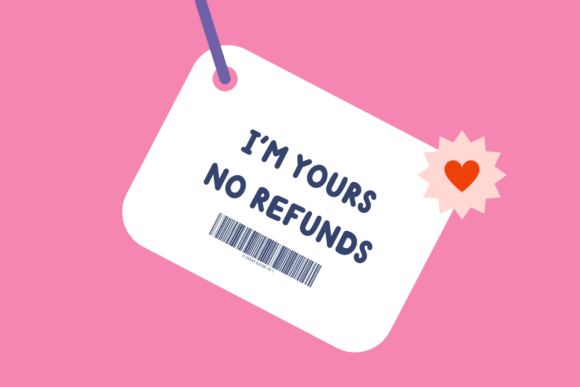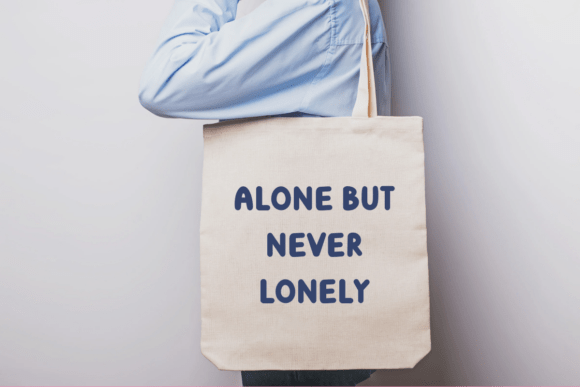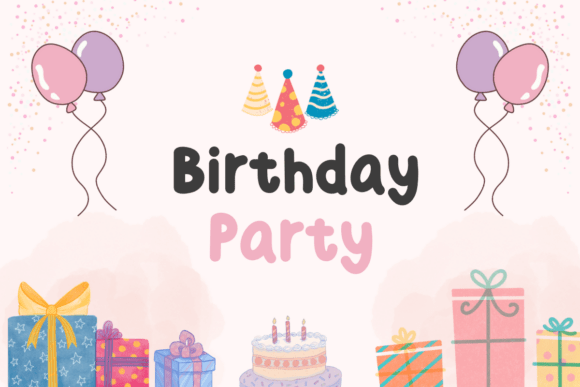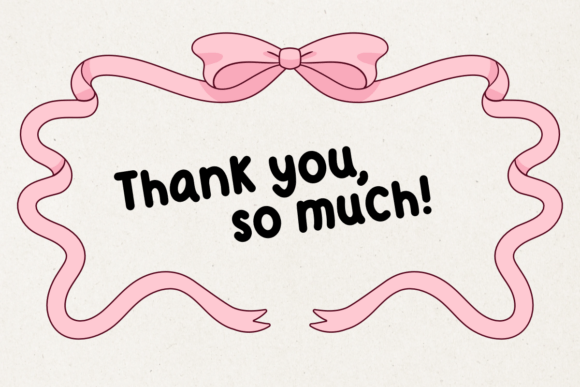
Introduction to Disney Bubble Font
Disney Bubble is a sweet and lively display font inspired by classic cartoon styles.
Its chunky bubble-like characters make it ideal for party invitations, playful branding, and anything that needs a sprinkle of magic and fun .
Key Features of Disney Bubble Font